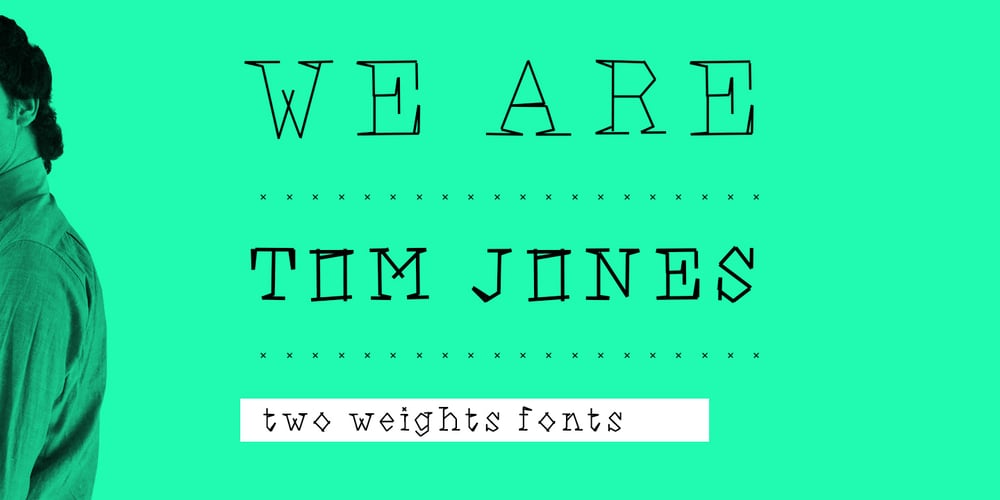
We Are Tom Jones
We Are Tom Jones font
We Are Tom Jones Font Family was designed by David Alexander Slaager and published by Fonts of Chaos. We Are Tom Jones contains 2 styles and family package options. We are Tom Jones is a slab font. The letters take inspiration from typewritter machine. Fun and disoriented, We are Tom Jones is also deconstructed but easily readable. This font is available in bold and regular weights. Have fun.